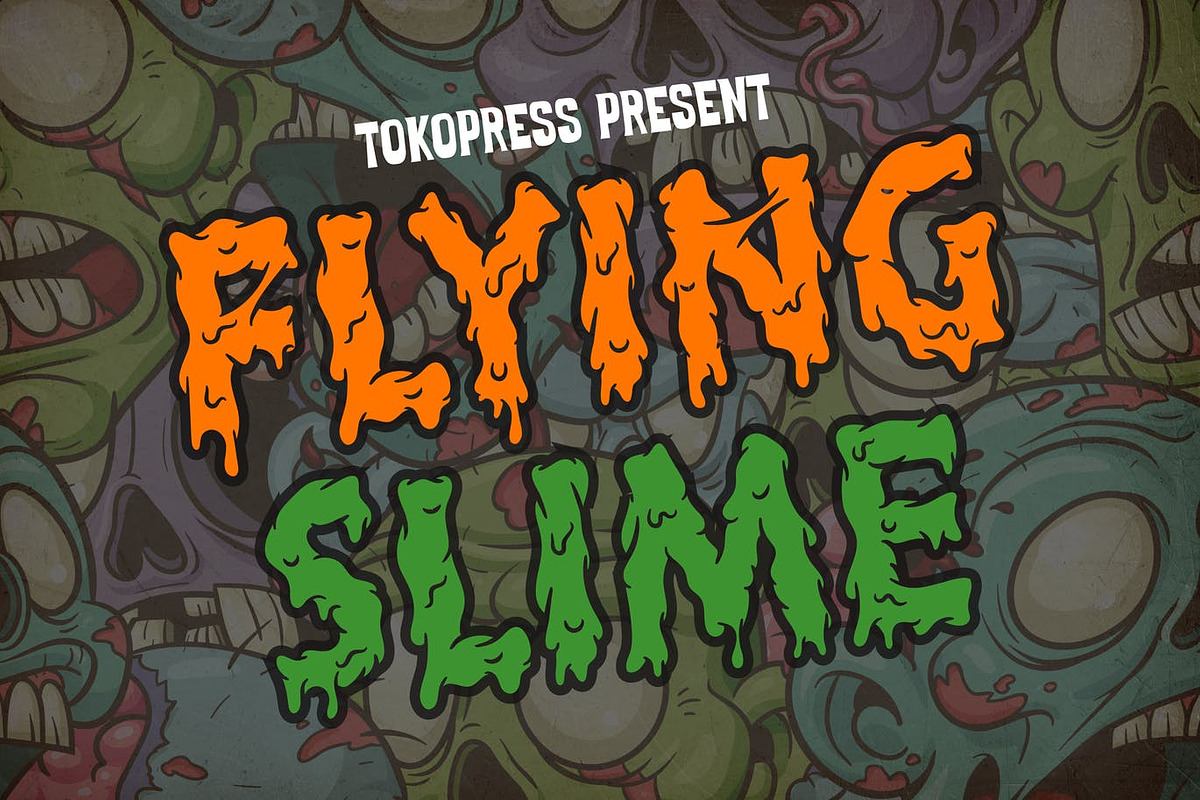
Flying Slime Spooky Font Free Download is a fun, spooky display typeface that blends creepy, slime-like textures with playful elements. Ideal for Halloween designs, spooky event posters, creepy branding, and ghostly invitations, this font adds a unique, eerie charm to your projects.
With its slimy, drippy edges and exaggerated letterforms, Flying Slime creates a fun, spooky atmosphere that’s perfect for designs that need to capture the essence of horror with a lighthearted twist. Whether you’re designing for Halloween parties, horror movie posters, or a quirky spooky brand, this font adds personality and flair to your typography.